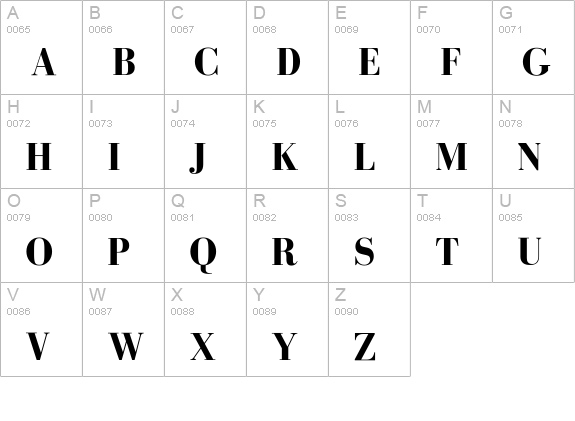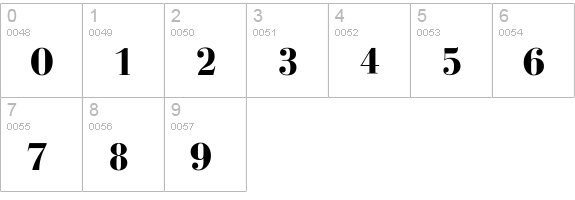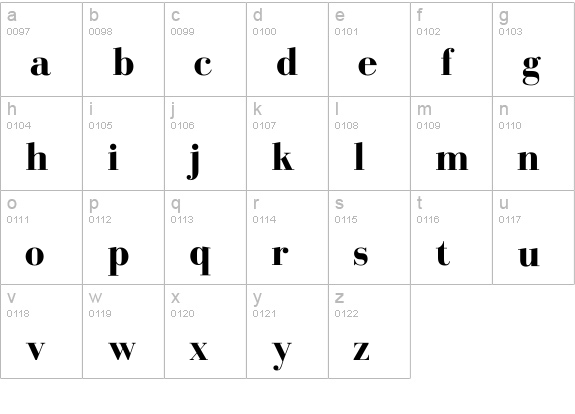
BodoniFLF-Bold Font Details
BodoniFLF-Bold is a strong, high-contrast variant in the BodoniFLF typeface family \xE2\x80\x94 well suited to headlines, attention-grabbing titles, and strong calls-to-action.
Introducing BodoniFLF-Bold, a magnificent font that exudes elegance and sophistication. This font is the epitome of timeless beauty, combining classic serifs with a bold and striking design that demands attention. BodoniFLF-Bold is perfect for a wide range of design projects, from branding and logos to editorial layouts and packaging. Its clean lines and sharp edges create a sense of professionalism and refinement, making it ideal for any project that requires a touch of sophistication. One of the best features of BodoniFLF-Bold is that it is available for free! Yes, you heard that right. This stunning font is freely available to download at FontsMarket.com. Now, you can add a touch of class to your designs without breaking the bank. Whether you're a professional designer or someone looking to spruce up their personal projects, BodoniFLF-Bold is a font that will elevate your work to new heights. Its bold and commanding presence on the page will ensure that your message is heard loud and clear. So why wait? Head over to FontsMarket.com and download BodoniFLF-Bold today. With its timeless beauty and the fact that it's free, this font is an absolute must-have for any design enthusiast. Don't miss out on the opportunity to add a touch of elegance to your next project.